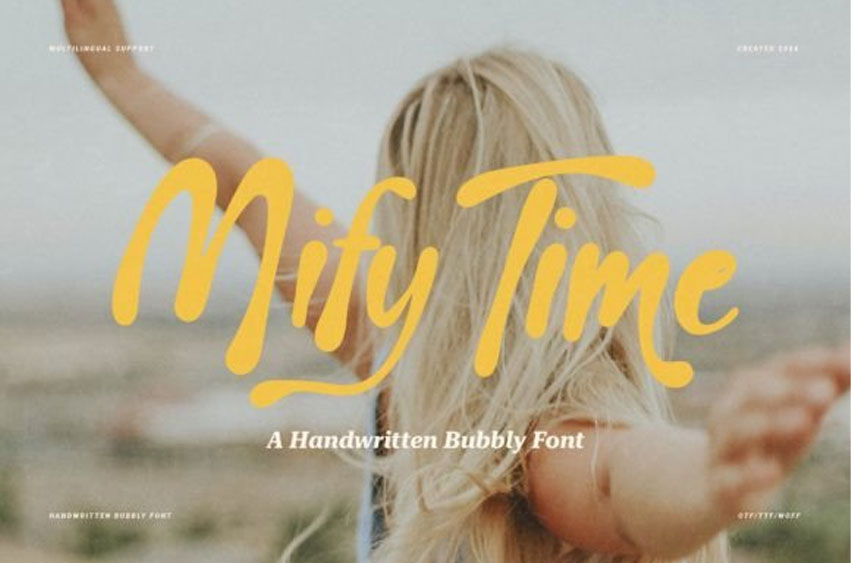
Mify Time Font is a playful and bubbly handwritten font. Its letters are rounded and fun, making it perfect for cheerful and casual designs like cards, posters, or invitations.
The font has a friendly and easy-to-read style, adding a touch of warmth to any project.